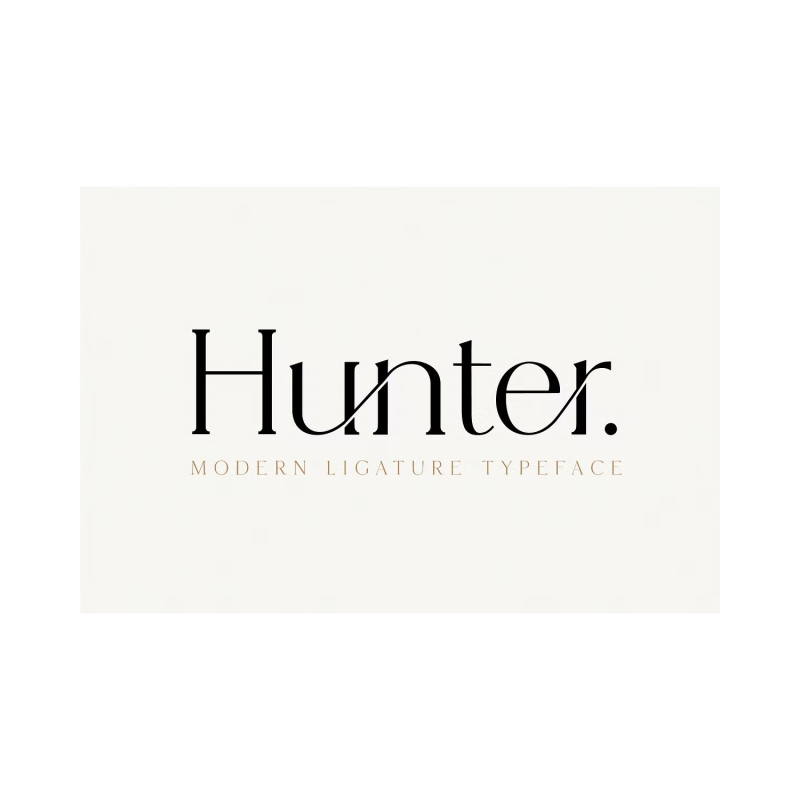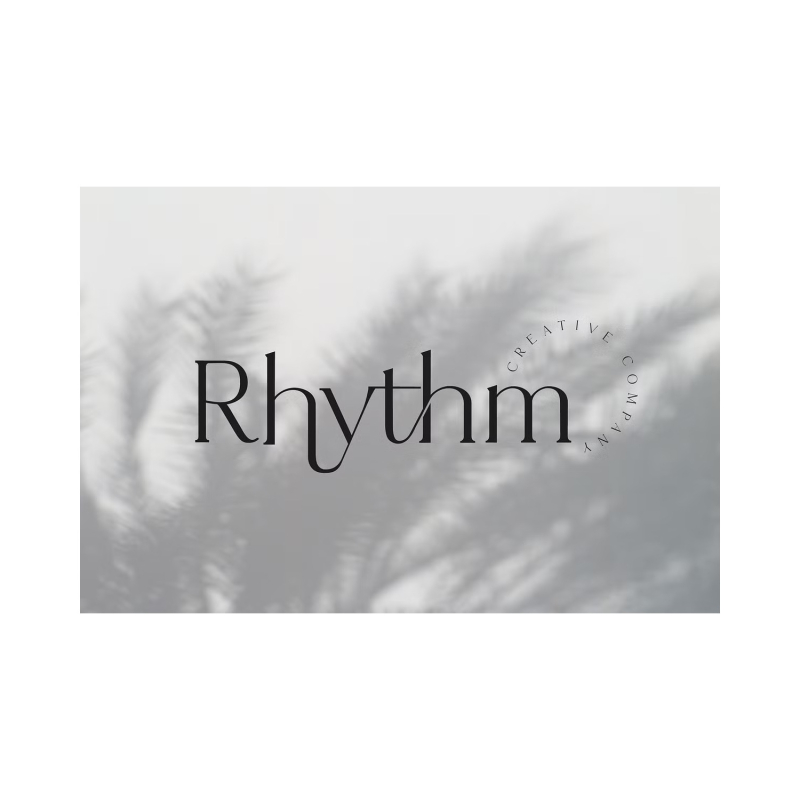
Hunter - Serif Ligature Font
Hunter is an elegant, unique font that uses ligatures to smoothly link letters. Perfect for adding a unique twist to word-mark logos, monograms or pull quotes. Hunter has 20 ligatures as well as numbers and punctuation making it super versatile. Ligatures are able to be turned off if needed for body copy. Plus, i have thrown in 4 bonus editable logos! Any Questions? Just ask!